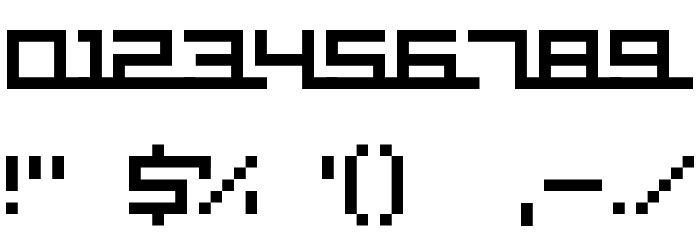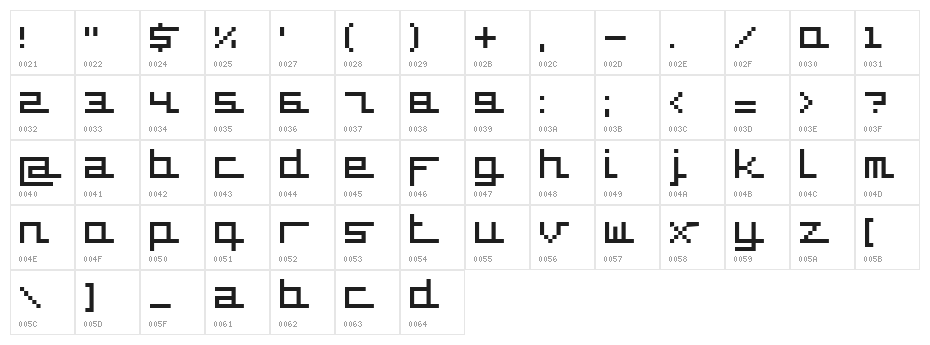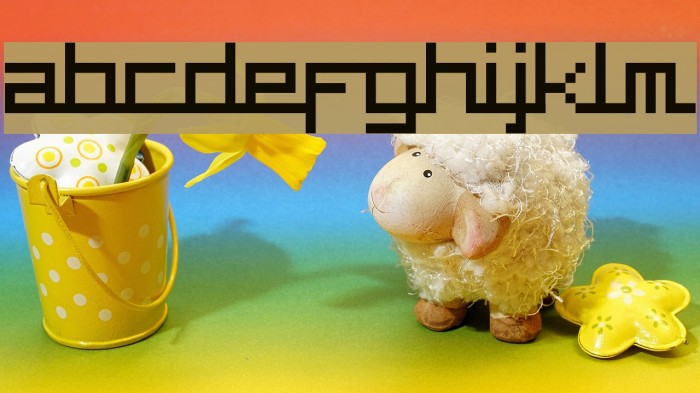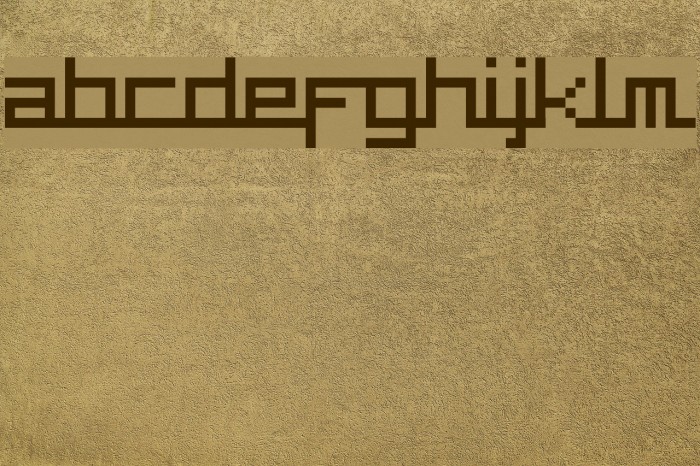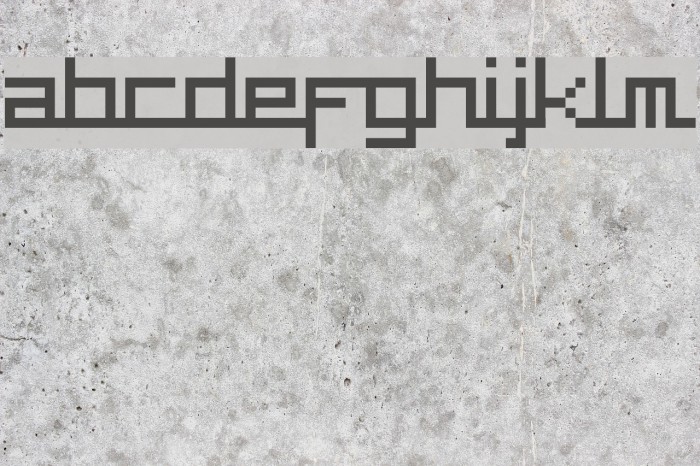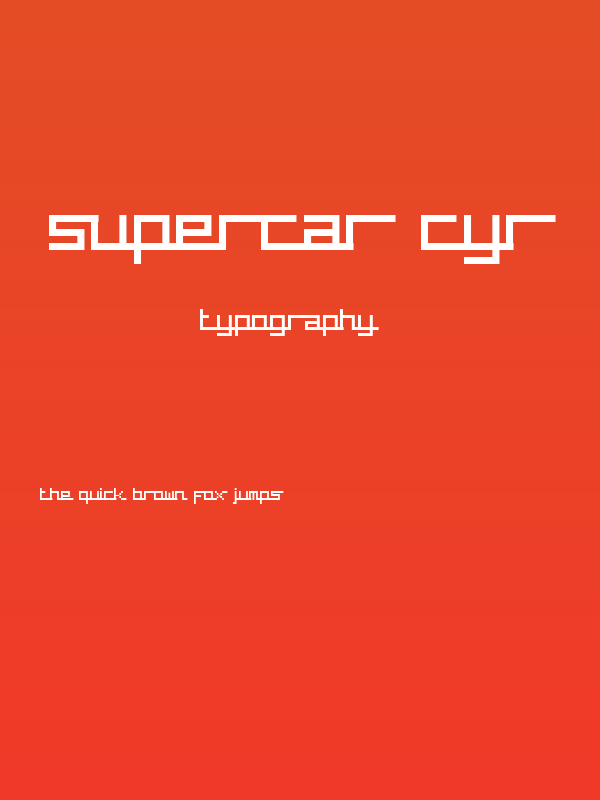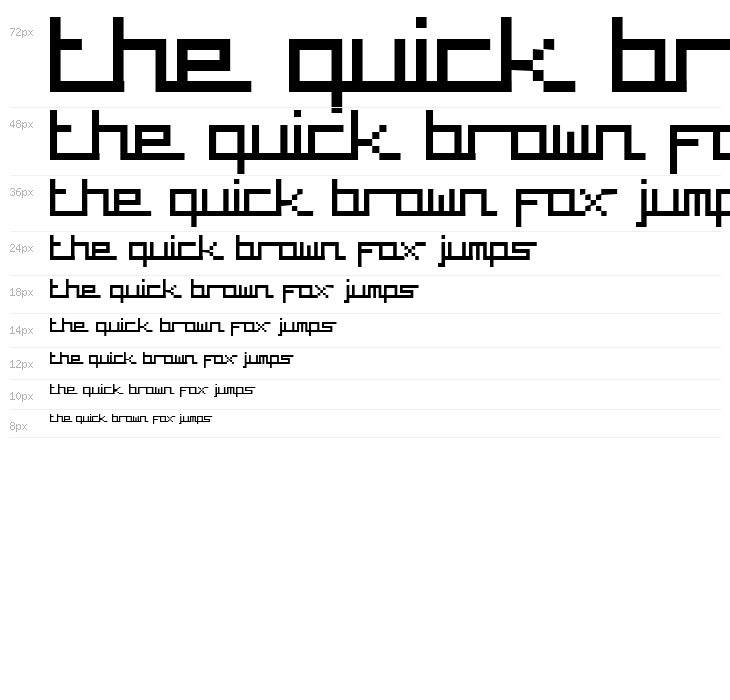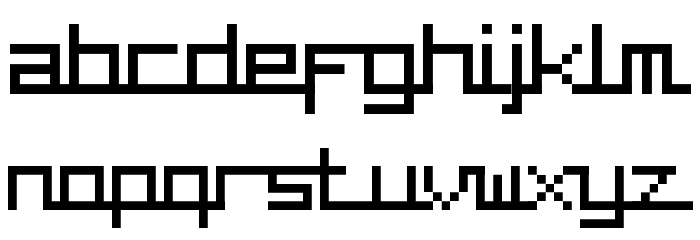
supercar cyr Font
supercar cyr Description
This font is a bold, geometric typeface with a distinctly modern and digital aesthetic. The characters are constructed with a pixelated, grid-like structure that gives it a retro, arcade game feel. Each letter and number is formed with straight lines and right angles, creating a uniform and mechanical appearance. The uppercase and lowercase letters maintain a consistent height, contributing to its monospaced style. The special characters are designed to match the overall pixelated theme, ensuring visual coherence across all glyphs. This font is ideal for projects that require a futuristic or tech-inspired look.